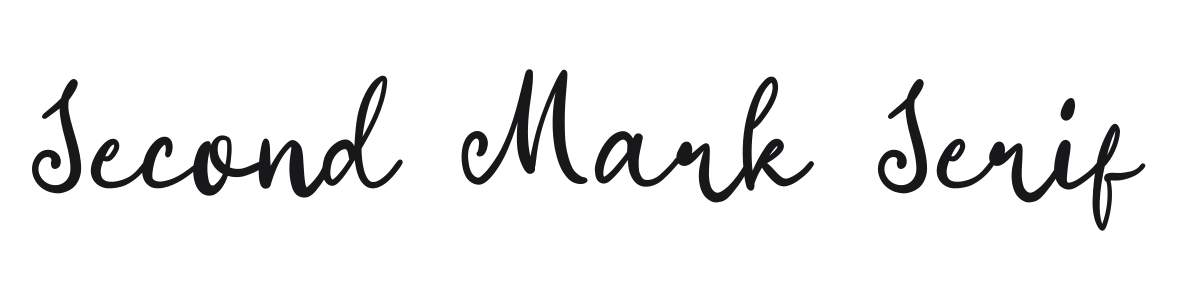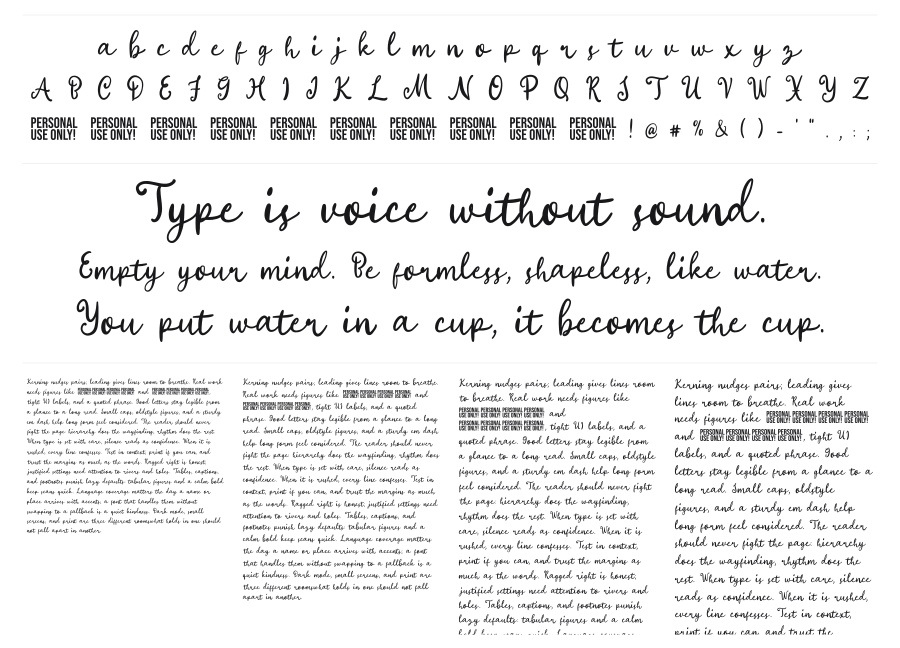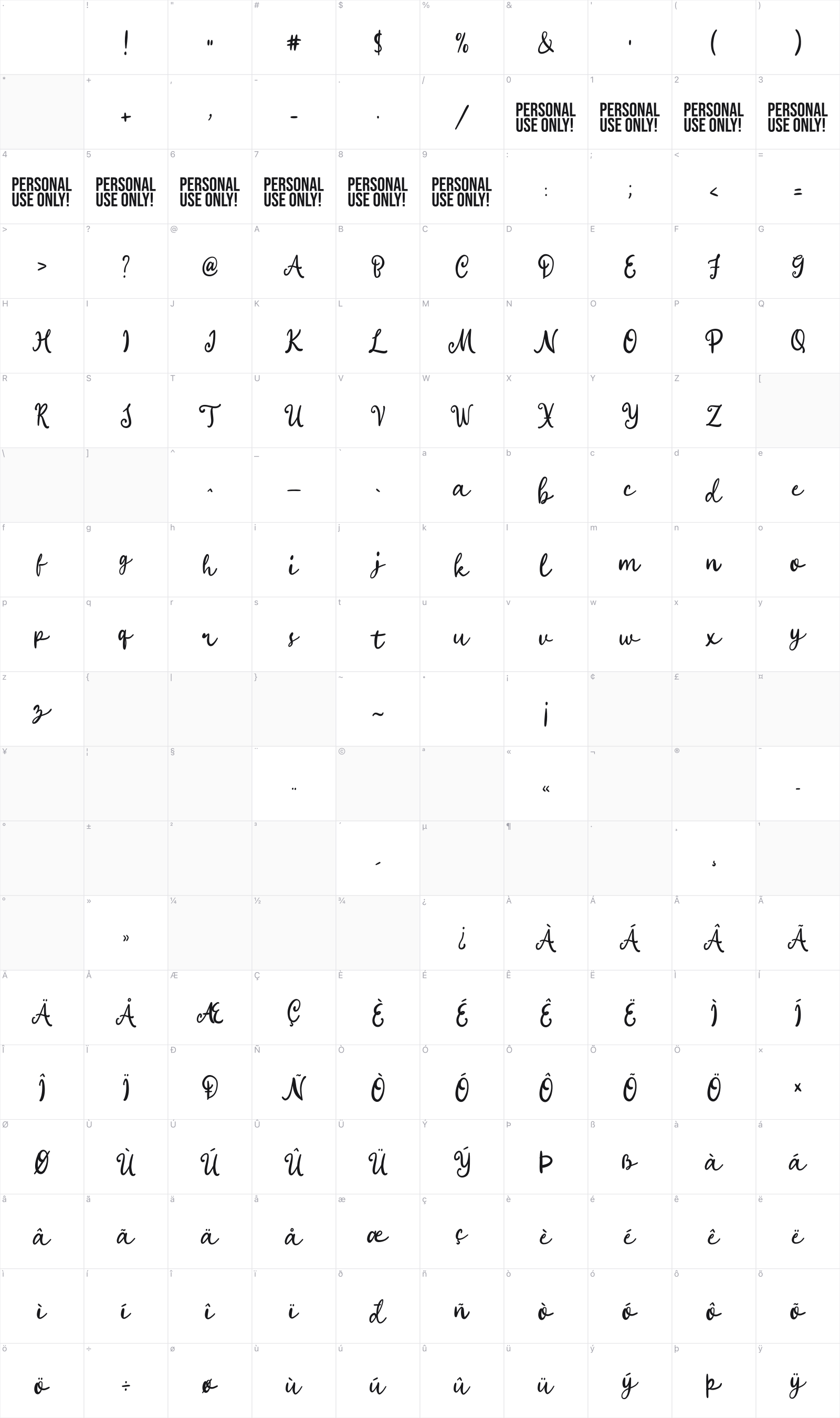
Second Mark Serif
Second Mark Serif is part of a font duo pairing an organic serif with this raw handwritten script. The script side leans into intentional irregularity, with natural stroke variation and loose looping connectors that give it the feel of a real pen moving across paper. It works best as an accent layer in editorial layouts, zines, journals, and branding projects that want a quiet human presence.